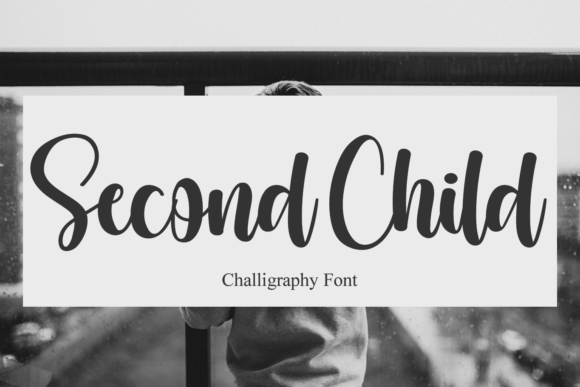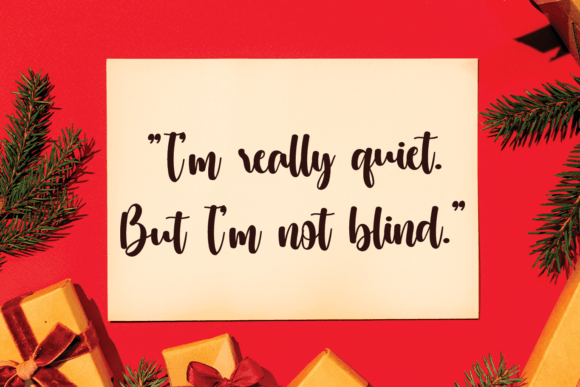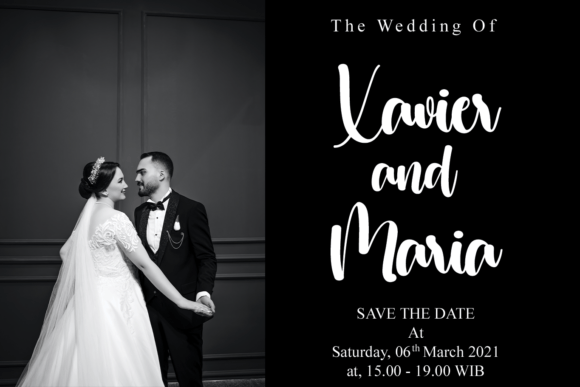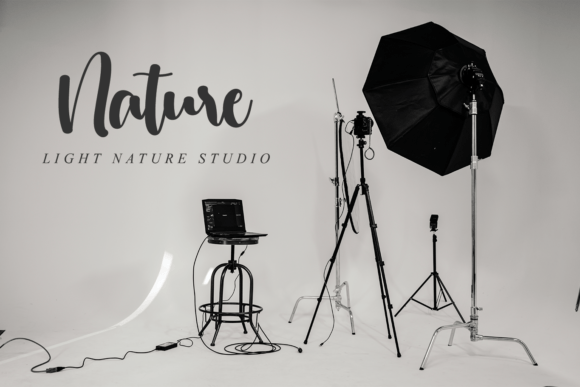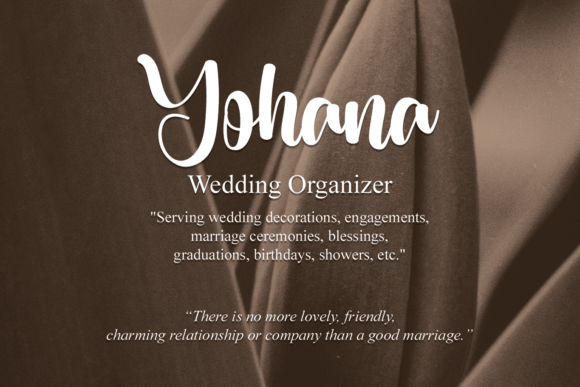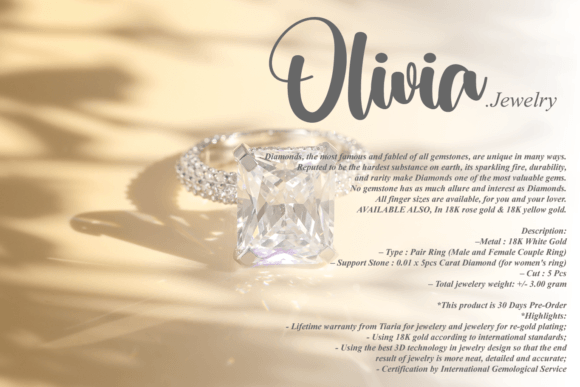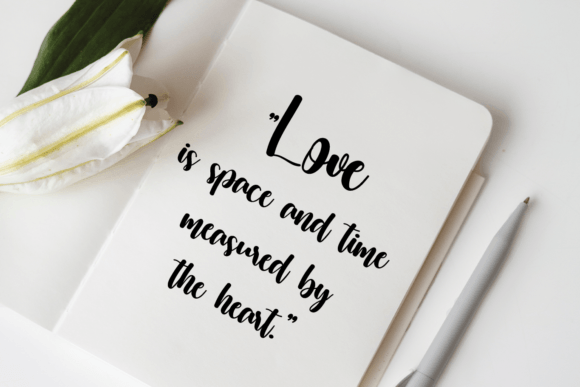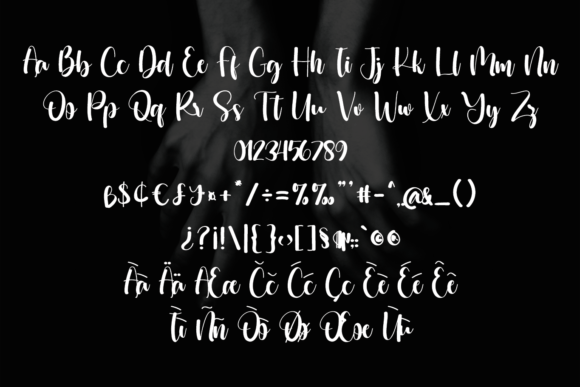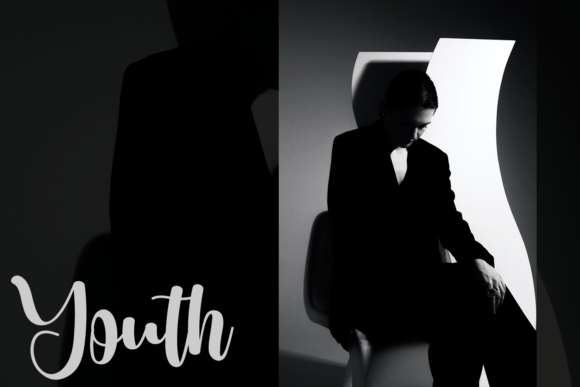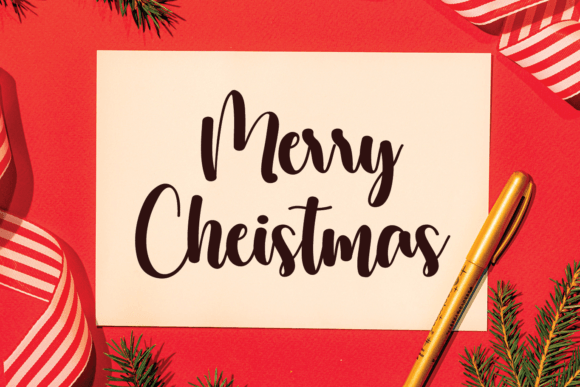
Second Child Font
About Second Child Font
Second Child Font is an exquisite handwritten script that merges calligraphic elegance with contemporary freshness. With refined strokes and graceful curves, this typeface adds timeless sophistication to both personal and professional projects. Because of its versatile design, Second Child Font is perfect for invitations, greeting cards, posters, logos, and branding.
A Handwritten Typeface with Calligraphic Elegance
Handwritten fonts bring authenticity and warmth to design, and Second Child Font enhances this with polished details. Its smooth rhythm ensures readability, while its calligraphy-inspired strokes provide refinement. Moreover, its timeless character adapts beautifully to both modern and traditional layouts. As a result, this script is a dependable option for creatives seeking sophistication and originality.
For stationery and event projects, Second Child Font is an excellent companion. For example, it can transform a wedding invitation into an elegant keepsake. In addition, it works wonderfully for thank-you notes, birthday greetings, and seasonal cards. Because of its refined energy, every design feels heartfelt, stylish, and memorable.
A Script Typeface for Logos and Branding
Businesses and professionals searching for elegance can rely on Second Child Font. It brings personality and distinction to logos, product labels, and packaging. Furthermore, on social media, it helps posts, stories, and promotional designs stand out with sophistication. When paired with minimalist sans serif fonts, Second Child Font achieves harmony between professionalism and creativity.
Another strength of Second ChildFont is its adaptability across mediums. In print, it looks beautiful on brochures, posters, magazines, and merchandise. Digitally, it enhances websites, blogs, and presentations with authenticity. Since it scales smoothly in both small and large sizes, this handwritten script is practical for a wide variety of uses.